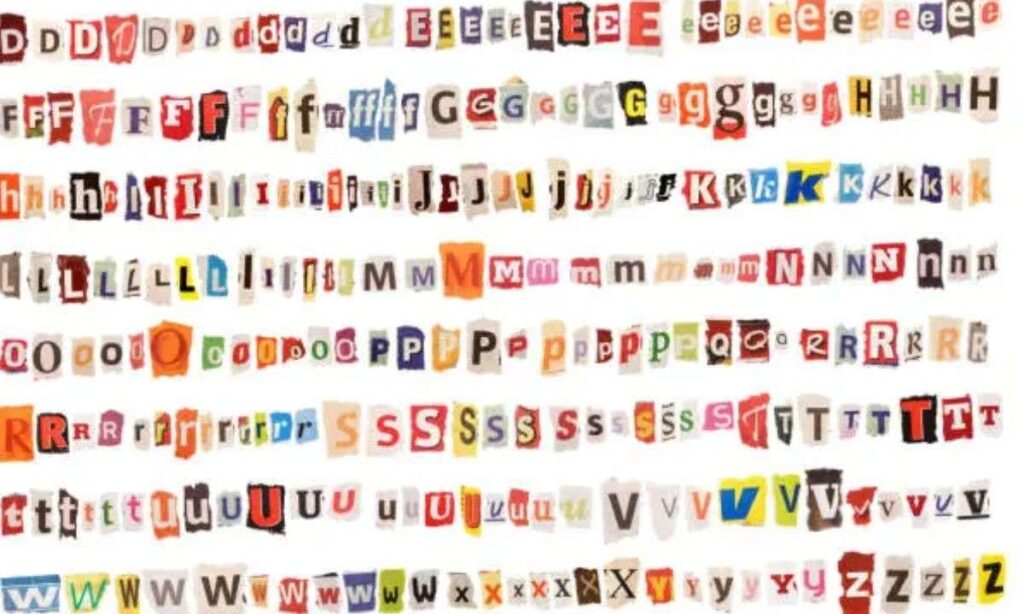
Letter fonts shape how people read, understand, and remember text. The right font improves readability, strengthens branding, and creates visual appeal across websites, social media, print, and digital design.
Whether you need fonts for logos, invitations, business documents, or creative projects, understanding different letter fonts helps you choose the best option.
What Are Letter Fonts?
Letter Fonts
Letter fonts are sets of characters designed with a consistent visual style. Each font includes letters, numbers, punctuation marks, and symbols that share the same design characteristics.
Common uses include:
• Website typography
• Logo design
• Business branding
• Social media graphics
• Invitations
• Posters
• Books
• Presentations
• Packaging
• Digital marketing
Typography combines font selection, spacing, size, and layout to improve communication.
What Are the Main Types of Letter Fonts?
Different font categories serve different purposes.
Font TypeCharacteristicsBest For
SerifSmall decorative strokesBooks, newspapers, formal documents
Sans SerifClean, simple linesWebsites, apps, presentations
ScriptHandwritten appearanceInvitations, branding, signatures
DisplayDecorative and boldHeadlines, posters, logos
MonospaceEqual character widthCoding, technical documents
Each category creates a different visual impression.
Serif Letter Fonts
Serif fonts include small strokes at the ends of letters. They are known for a traditional and professional appearance.
Popular serif fonts include:
• Times New Roman
• Georgia
• Garamond
• Baskerville
• Merriweather
Best uses:
• Printed books
• Newspapers
• Academic writing
• Professional reports
• Editorial websites
Many publishers use serif fonts because they support comfortable long-form reading.
Sans Serif Letter Fonts
Sans serif fonts remove decorative strokes, producing a clean and modern appearance.
Popular examples include:
• Arial
• Helvetica
• Calibri
• Open Sans
• Roboto
• Lato
• Montserrat
• Poppins
Best uses:
• Websites
• Mobile apps
• User interfaces
• Online stores
• Digital advertising
Google Fonts offers many free sans serif options optimized for web performance.
Script Letter Fonts
Script fonts imitate handwriting and calligraphy.
Popular script fonts include:
• Pacifico
• Great Vibes
• Dancing Script
• Allura
• Sacramento
Best applications include:
• Wedding invitations
• Greeting cards
• Luxury branding
• Certificates
• Signature logos
Script fonts work best for short text because long paragraphs become difficult to read.
Display Letter Fonts
Display fonts prioritize creativity over readability.
Common uses include:
• Event posters
• Headlines
• Gaming graphics
• Product packaging
• Movie titles
• Logo design
Examples include:
• Bebas Neue
• Lobster
• Impact
• Anton
• Abril Fatface
Use display fonts sparingly to attract attention without overwhelming readers.
Monospace Letter Fonts
Monospace fonts assign identical width to every character.
Popular choices include:
• Courier New
• Consolas
• Source Code Pro
• Fira Code
• JetBrains Mono
These fonts improve alignment and readability in programming environments.
How to Choose the Best Letter Font
Selecting the right font depends on your content and audience.
Consider these factors:
• Readability
• Brand personality
• Device compatibility
• Font licensing
• Accessibility
• Loading speed
• Print quality
For websites, prioritize readable fonts that perform well on desktop and mobile devices.
Best Letter Fonts for Websites
Many designers choose these fonts because they combine readability with modern design.
FontCategoryBest Use
RobotoSans SerifWebsites
Open SansSans SerifBlogs
LatoSans SerifBusiness sites
PoppinsSans SerifLanding pages
MerriweatherSerifArticles
MontserratSans SerifHeadings
Many of these fonts are available through Google Fonts.
Best Letter Fonts for Logos
A logo font should reflect the brand’s personality.
Popular logo fonts include:
• Helvetica
• Futura
• Gotham
• Montserrat
• Bebas Neue
• Garamond
Luxury brands often use elegant serif fonts, while technology companies frequently choose minimalist sans serif fonts.
Best Letter Fonts for Social Media
Social media graphics require bold and readable typography.
Recommended fonts include:
• Poppins
• Montserrat
• Anton
• Oswald
• Bebas Neue
Use high contrast between text and background to improve readability on small screens.